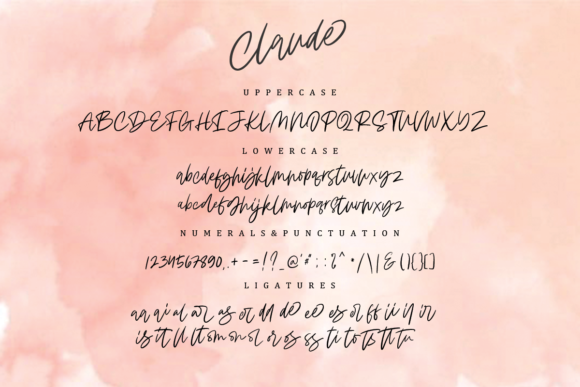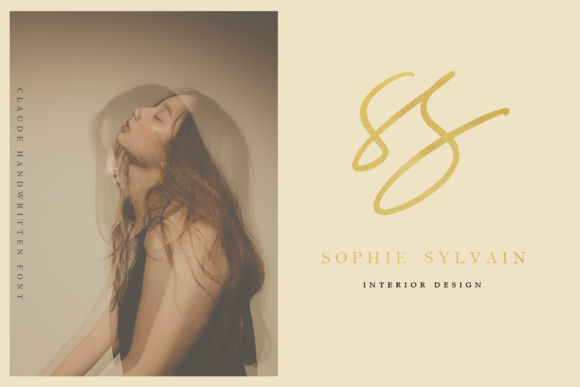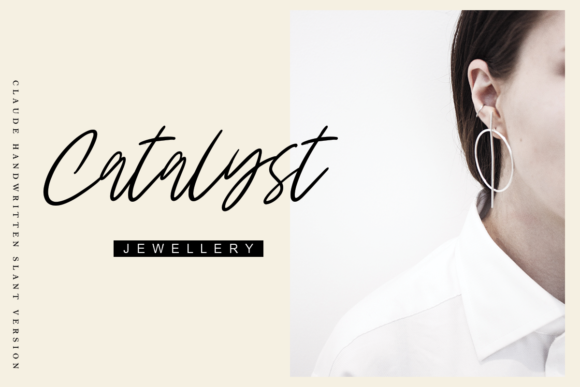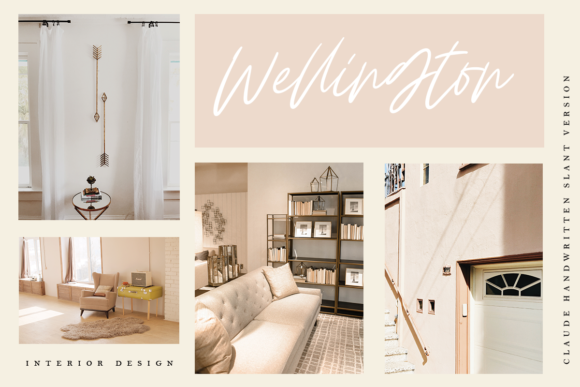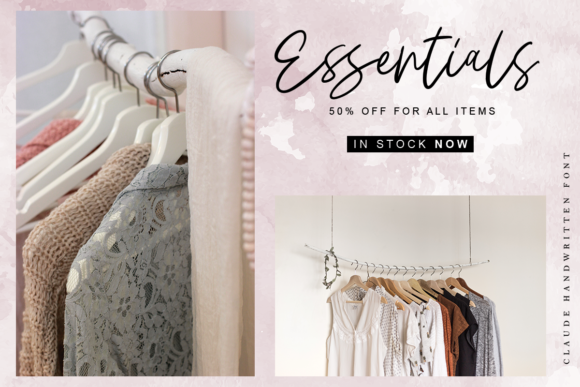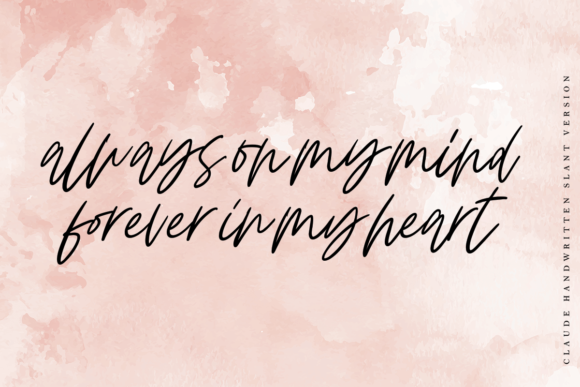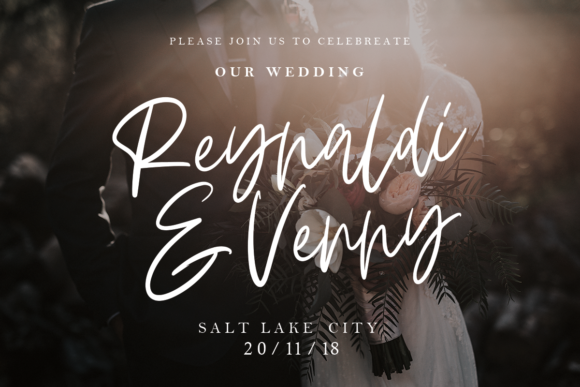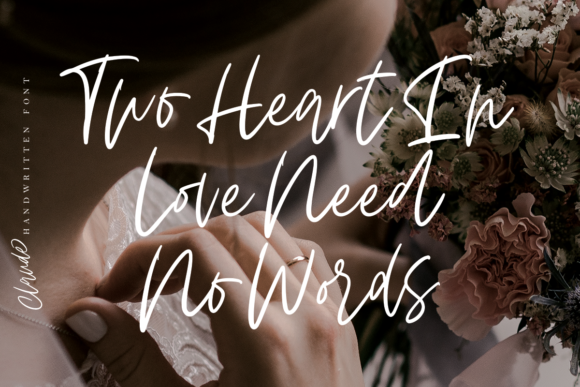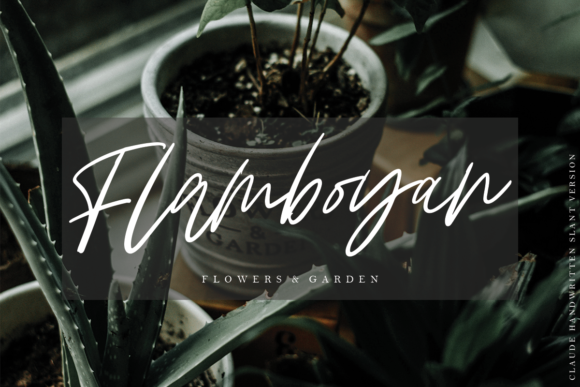
Claude Family Font
The Claude is a beautiful handwritten family which comes in four unique variations. It will give your designs an elegant and feminine feel.
The flowing characters are ideal for creating logos, badges, packaging, titles, posters, t-shirts / clothes, greeting cards, wedding invitations and more.